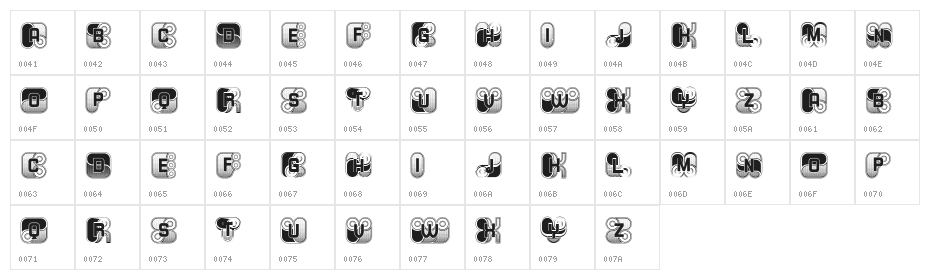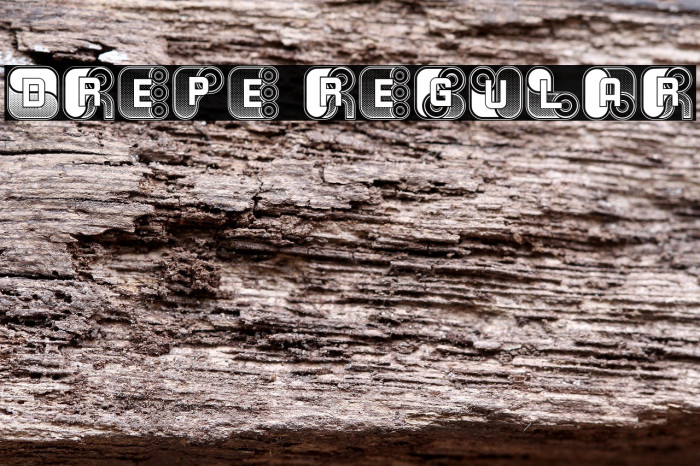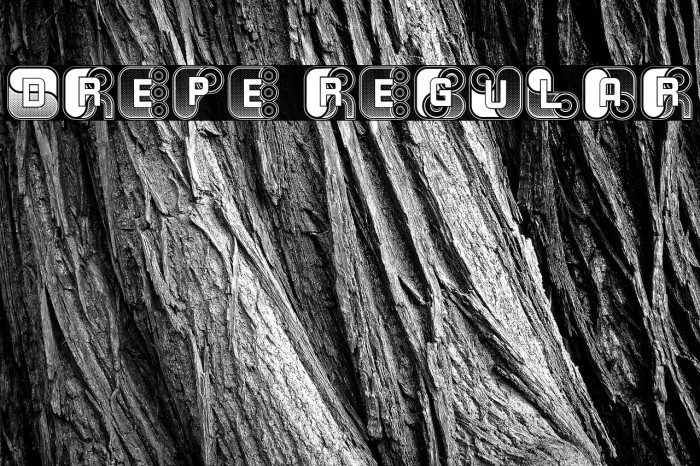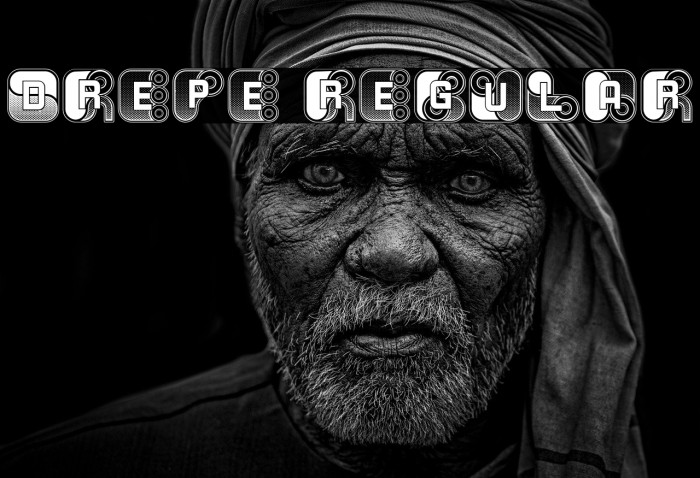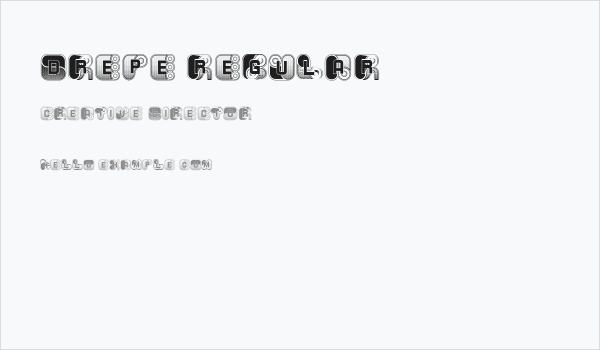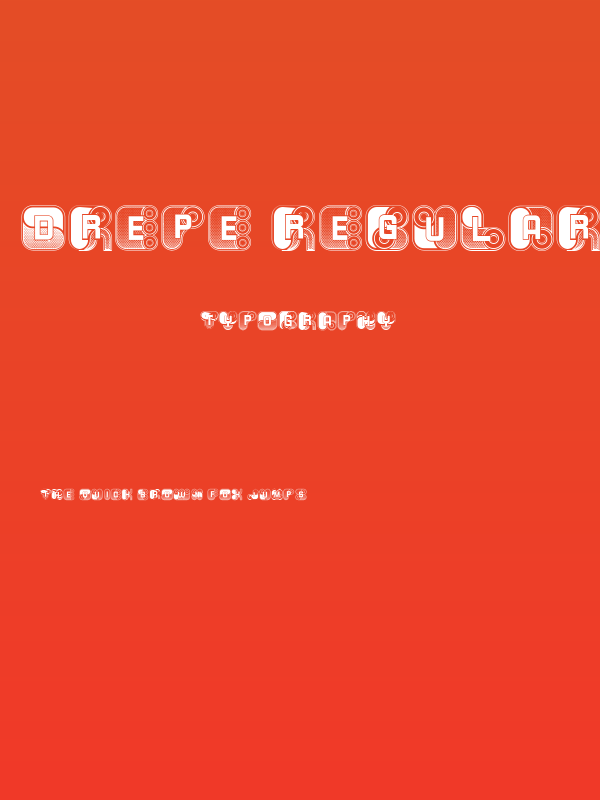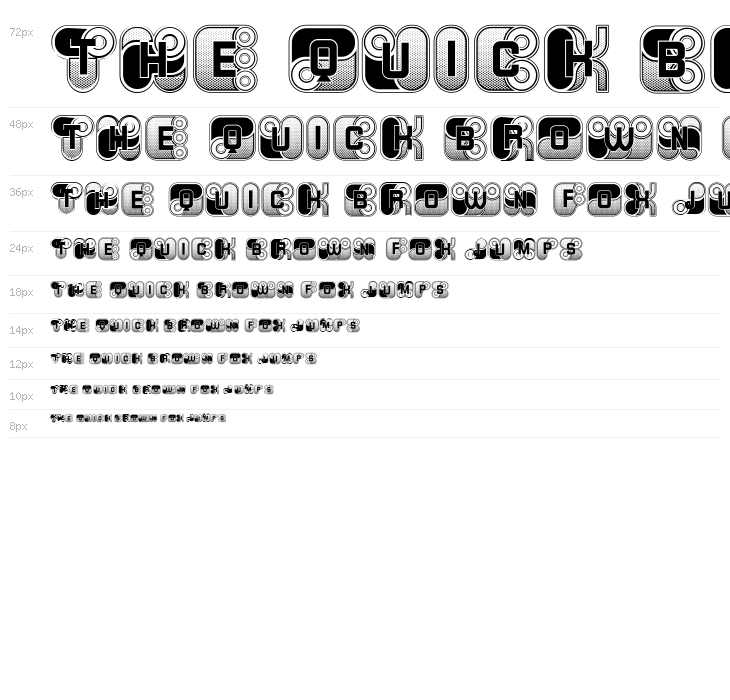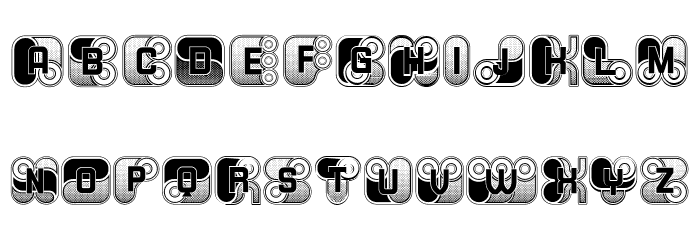
Drepe Regular Font
Drepe Regular Description
This font features a bold and decorative style with intricate patterns and unique geometric shapes. Each character is designed with a combination of solid fills and dotted textures, creating a visually striking appearance. The letters are enclosed within rounded, rectangular forms, giving them a distinct, modern look. The font's playful and artistic design makes it stand out, with each character offering a different pattern or texture, adding to its overall appeal. The use of contrasting black and white elements enhances its visual impact, making it suitable for eye-catching designs.
| Proposed Projects | Ideal for posters, album covers, branding, and any project requiring a bold, artistic touch. |